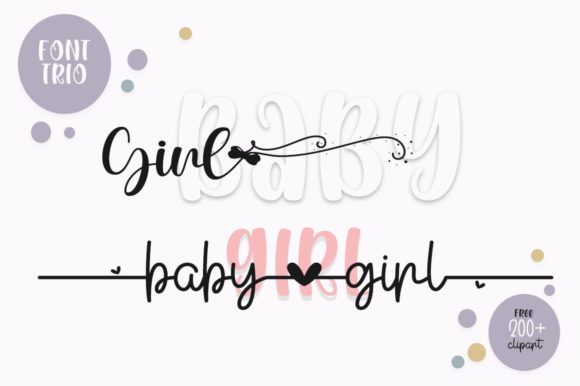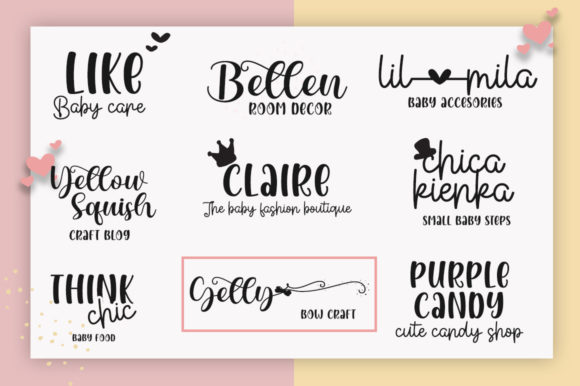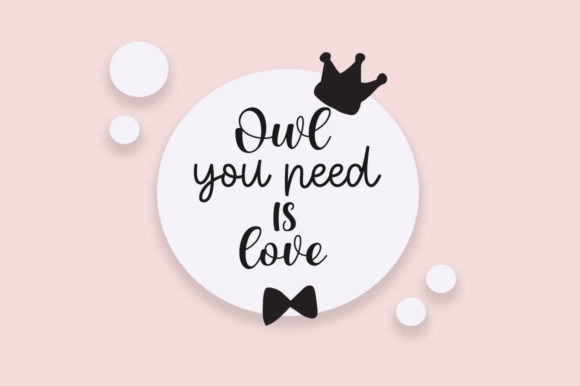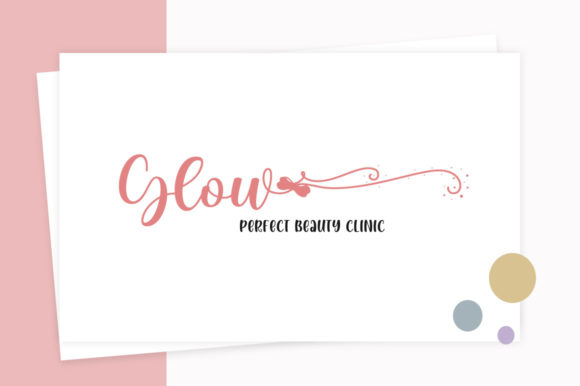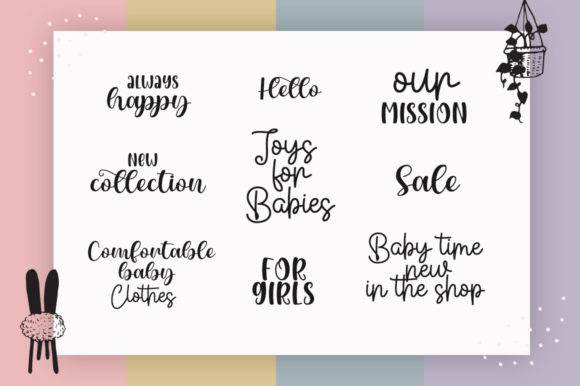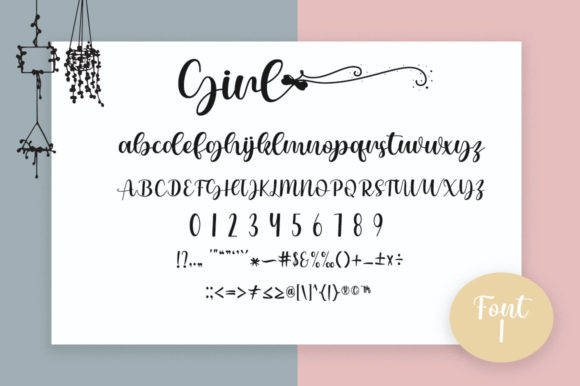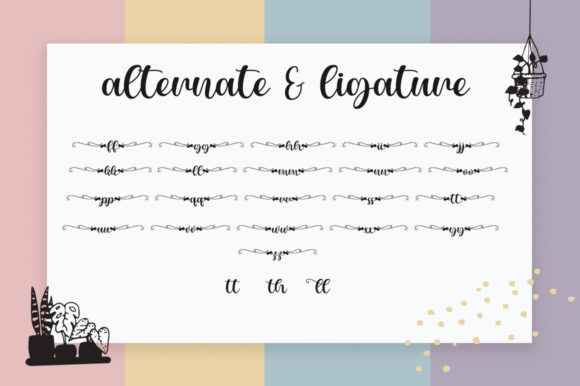
Baby Girl Font
Baby Girl consists of two fonts designed to complement each other perfectly. Together or apart, these fonts are ideal for adding a chic and cheery touch to your crafts. This font is PUA encoded which means you can access all glyphs and swashes with ease!